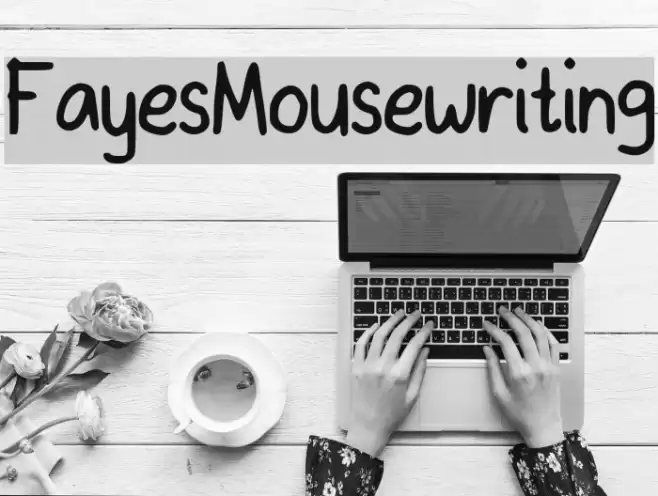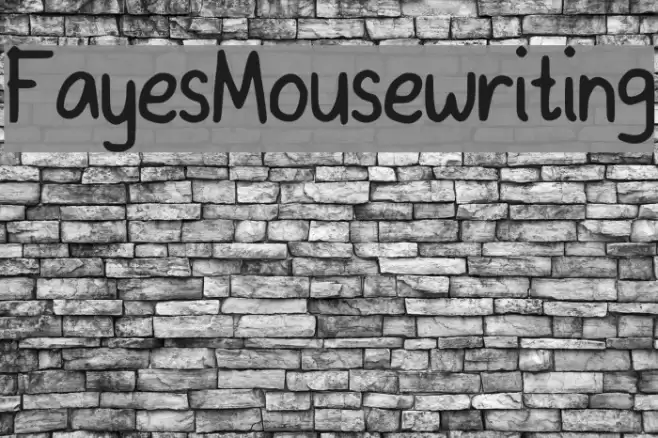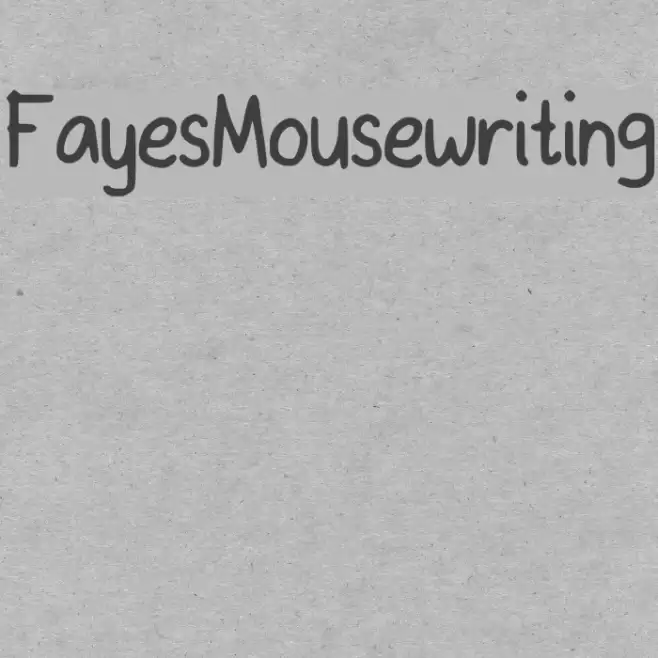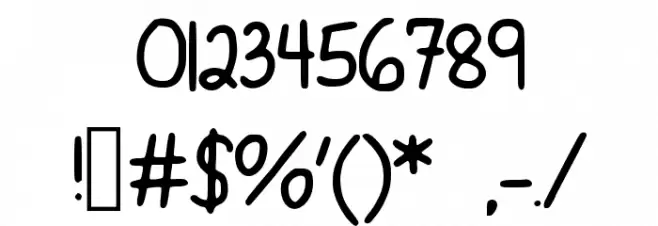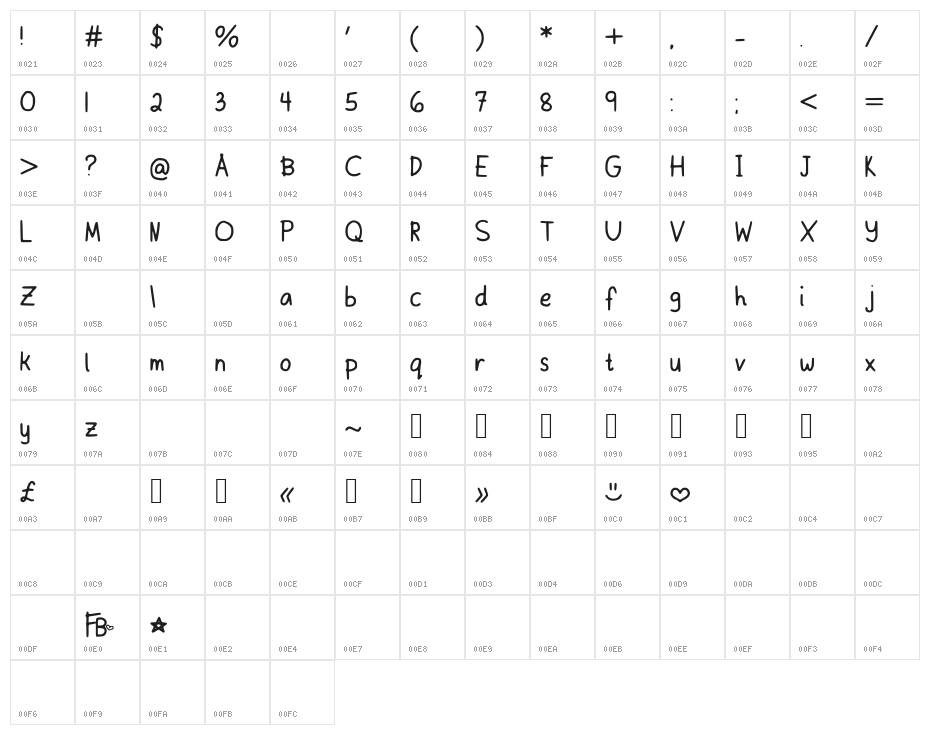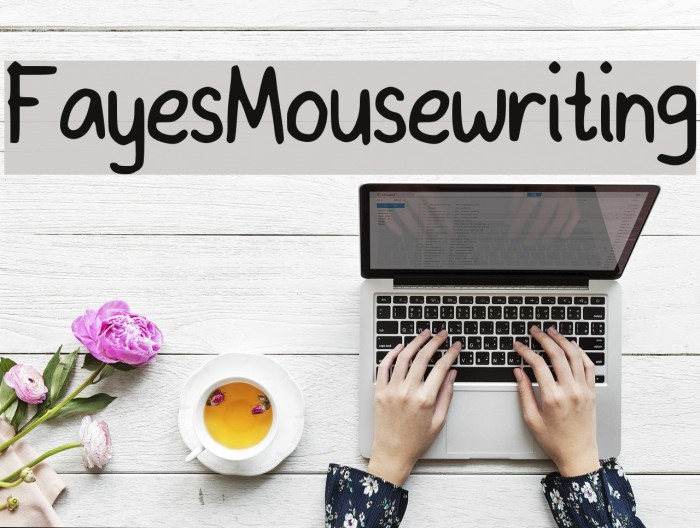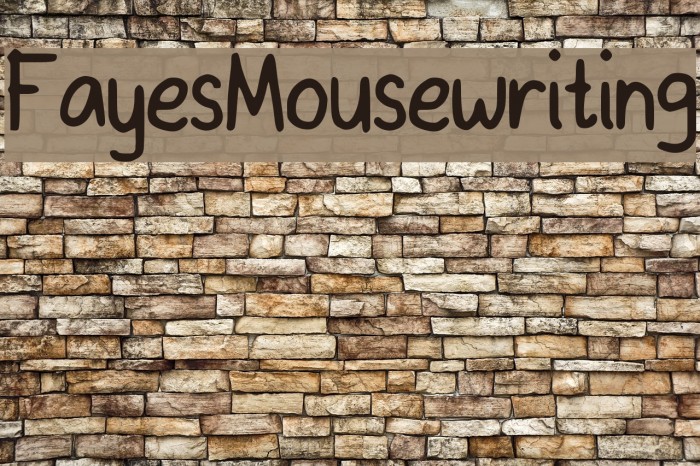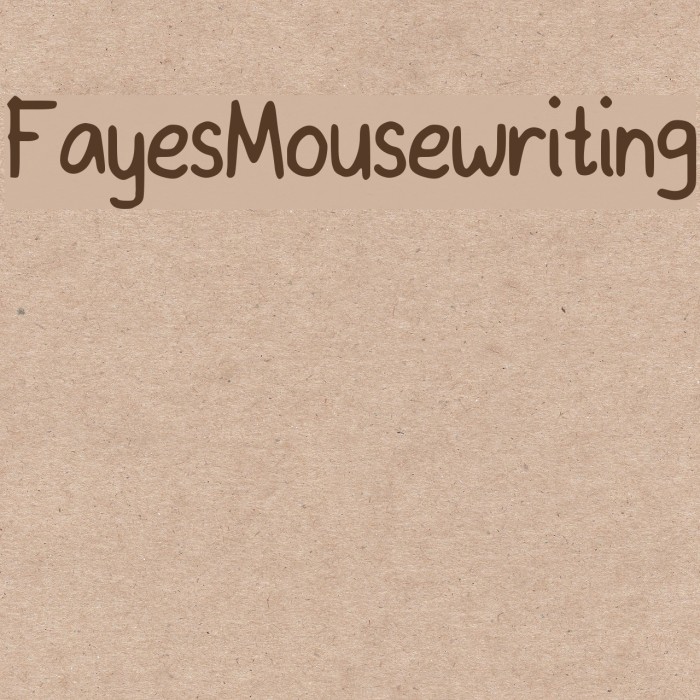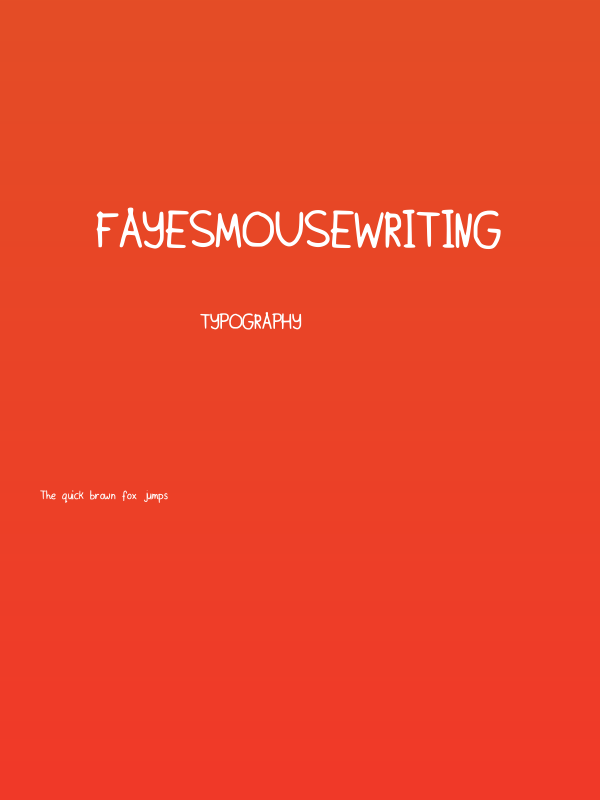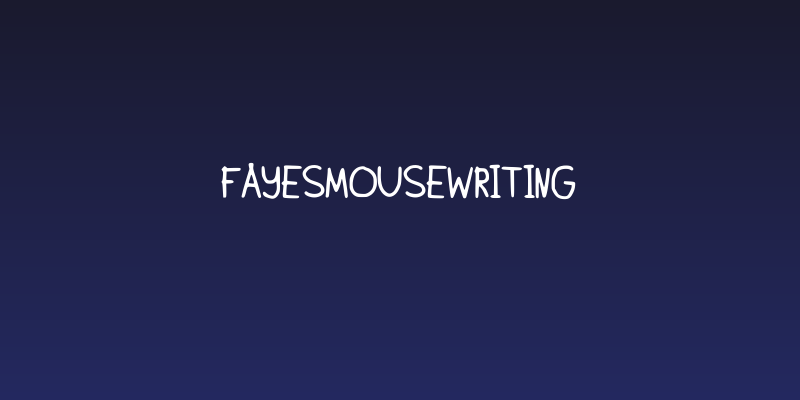
FayesMousewriting Font
FayesMousewriting Description
This playful and whimsical font features a handwritten style that mimics the casual, flowing strokes of a marker or pen. The characters are slightly irregular, adding a charming, informal touch. Uppercase letters are bold and rounded, while lowercase letters maintain a consistent, friendly appearance. The numbers and special characters follow the same playful aesthetic, making this font ideal for projects that require a personal, approachable feel. Its unique style is perfect for creative and fun designs, offering a sense of spontaneity and warmth.
A playful, handwritten font with a whimsical, casual style from Uncategorized fonts.
- Proposed Projects: Ideal for children's books, greeting cards, playful branding, and informal invitations.
- Overall Style: Playful, Whimsical
- Use Case: Headlines, Logos, Informal Text